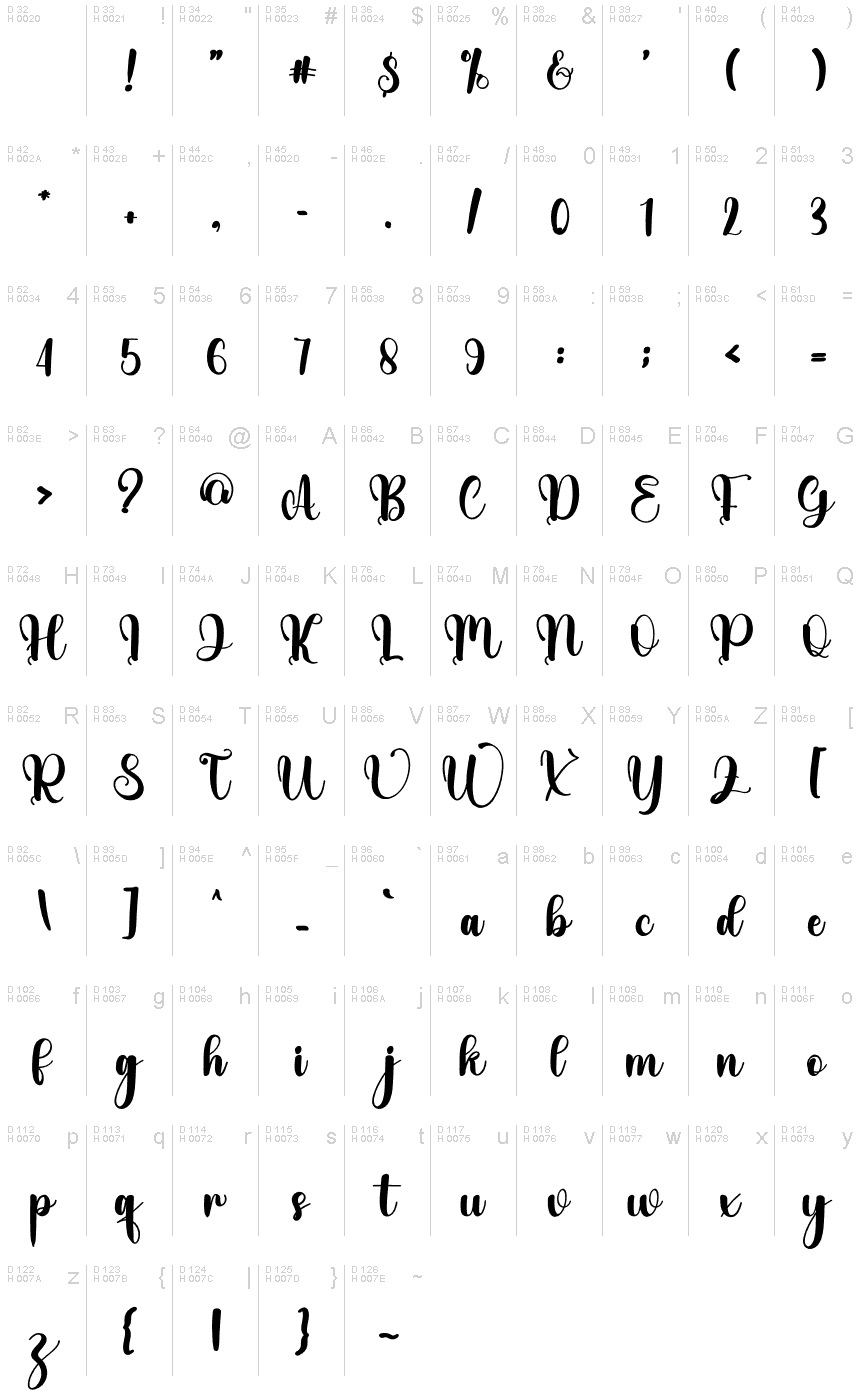
Elegant
Elegant, crafted by Inermedia Studio, stands as a testament to the timeless beauty of calligraphy in the digital age. This semi-bold typeface marries classic sophistication with contemporary flair, making it an exquisite choice for designers seeking to add a touch of class to their projects. Each stroke of Elegant exudes finesse, with gentle curves and fluid lines that mimic the artistry of hand-lettering.
The font's aesthetic appeal lies in its balance—robust enough to command attention yet delicate enough to convey luxury and exclusivity. It is particularly well-suited for branding, wedding invitations, editorial design, and upscale packaging where its stylized appearance can create an impactful first impression.
With its distinctive character and stylish gracefulness, Elegant promises versatility without sacrificing its bespoke charm. Whether used for print or digital mediums, this font is poised to elevate creative endeavors with an air of elegance that is both modern and timeless.